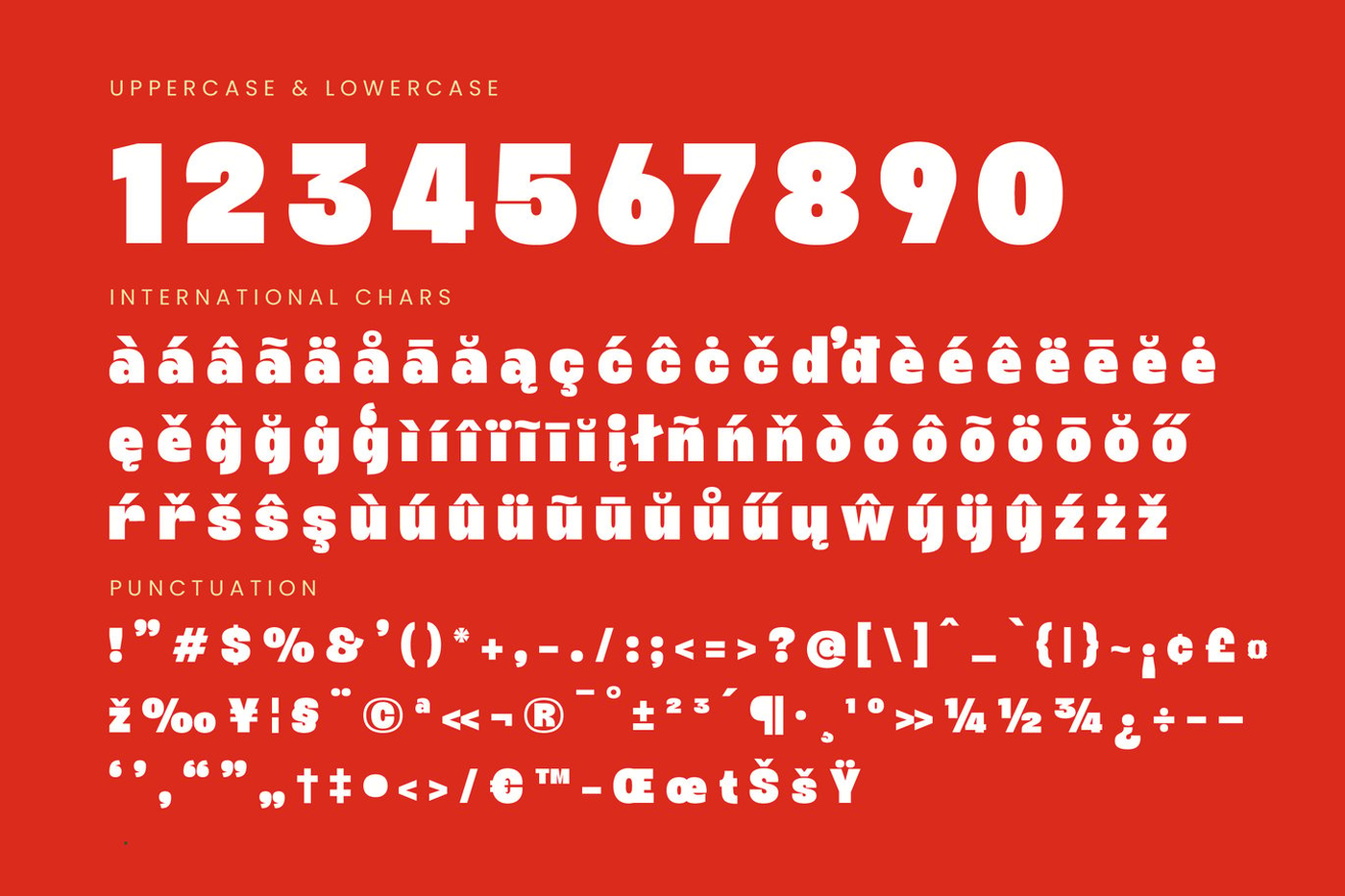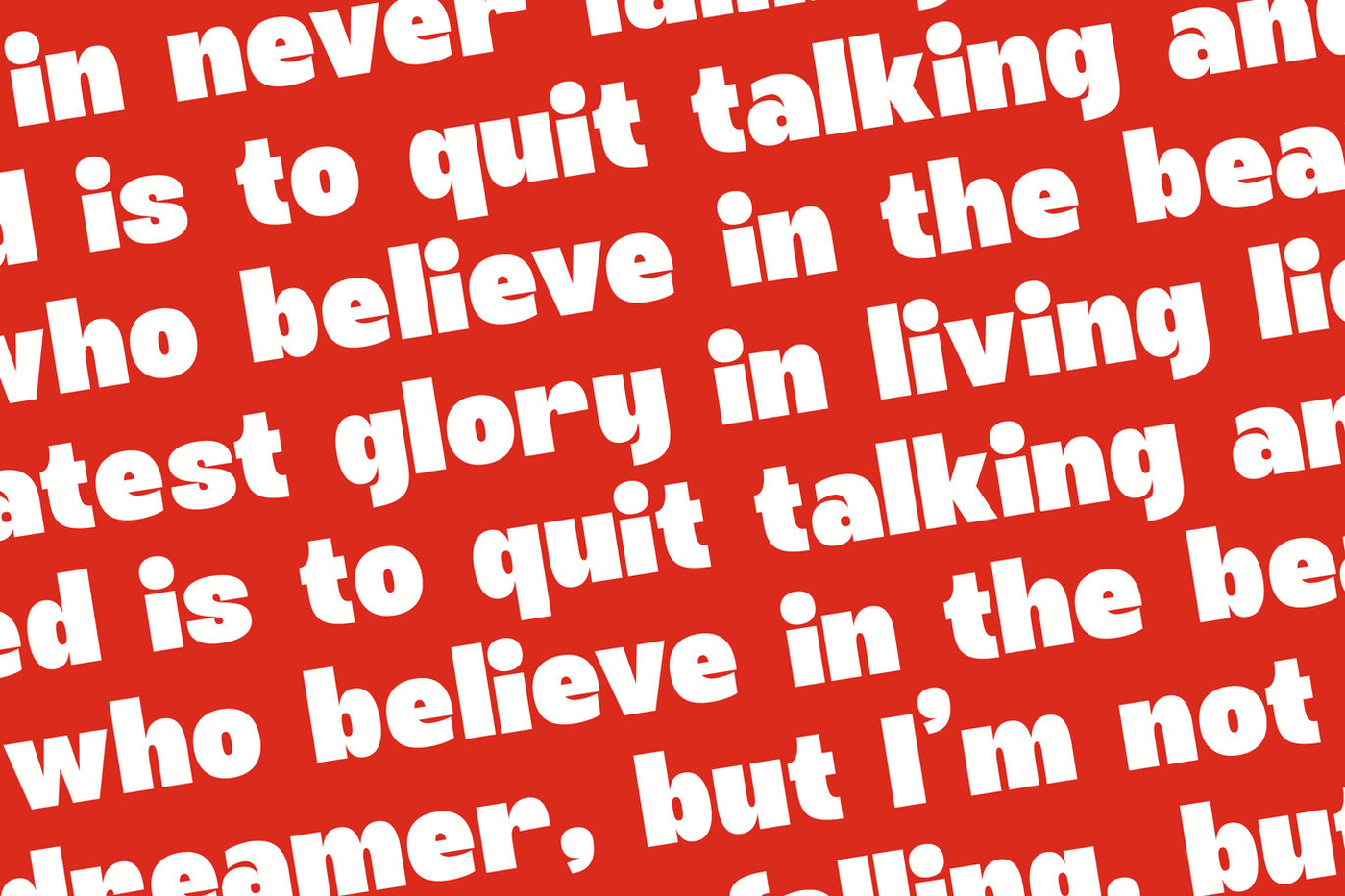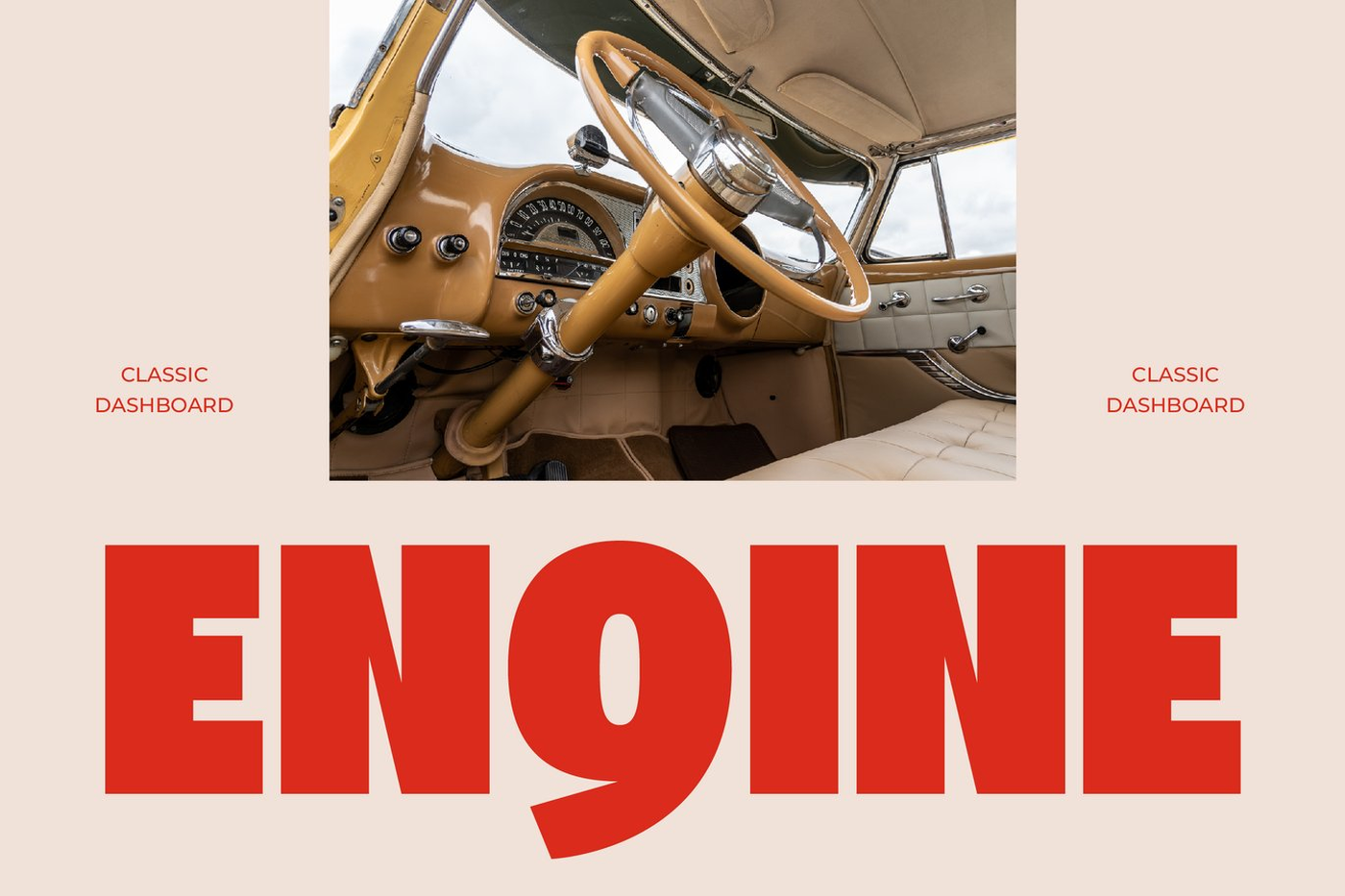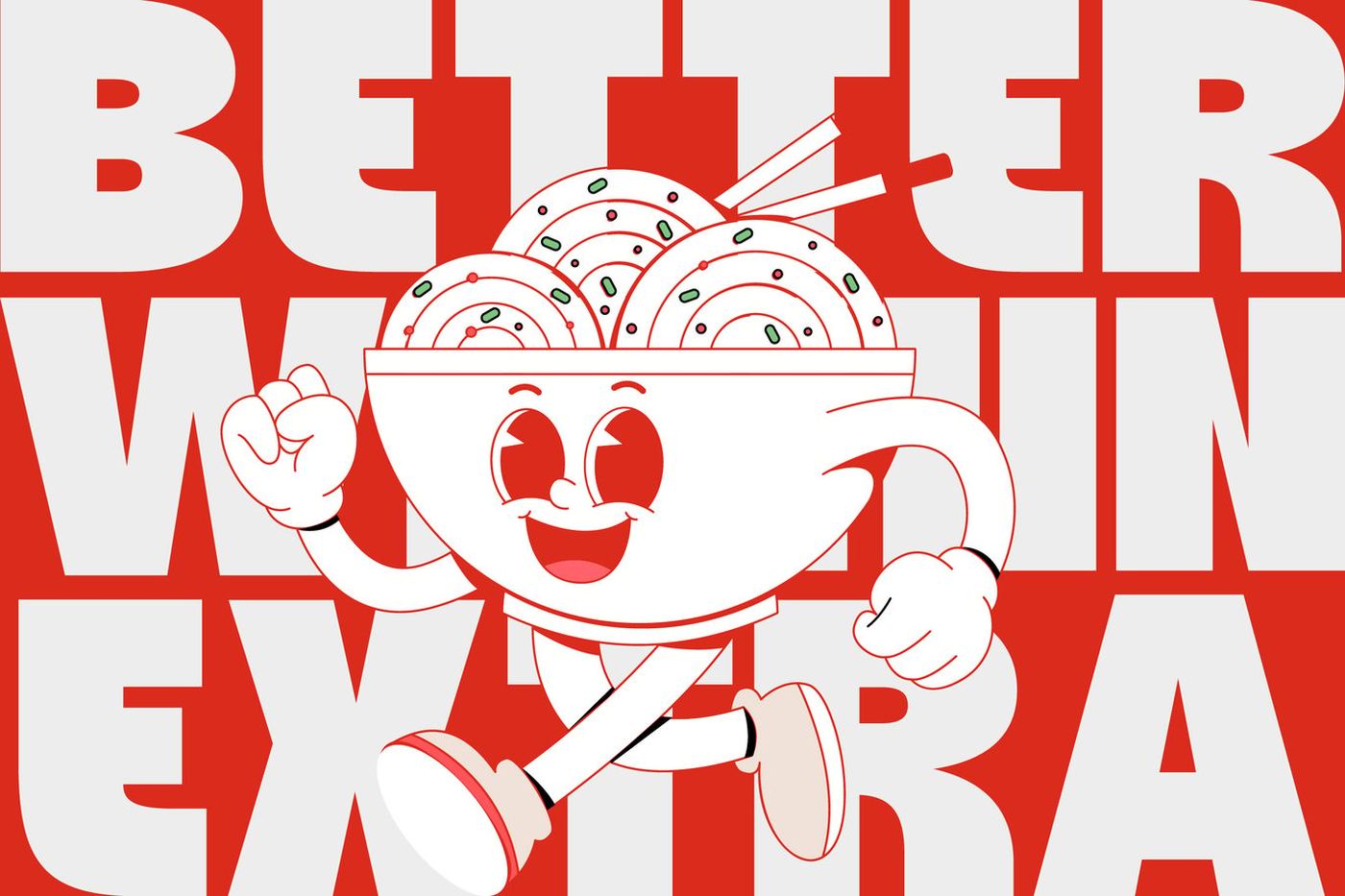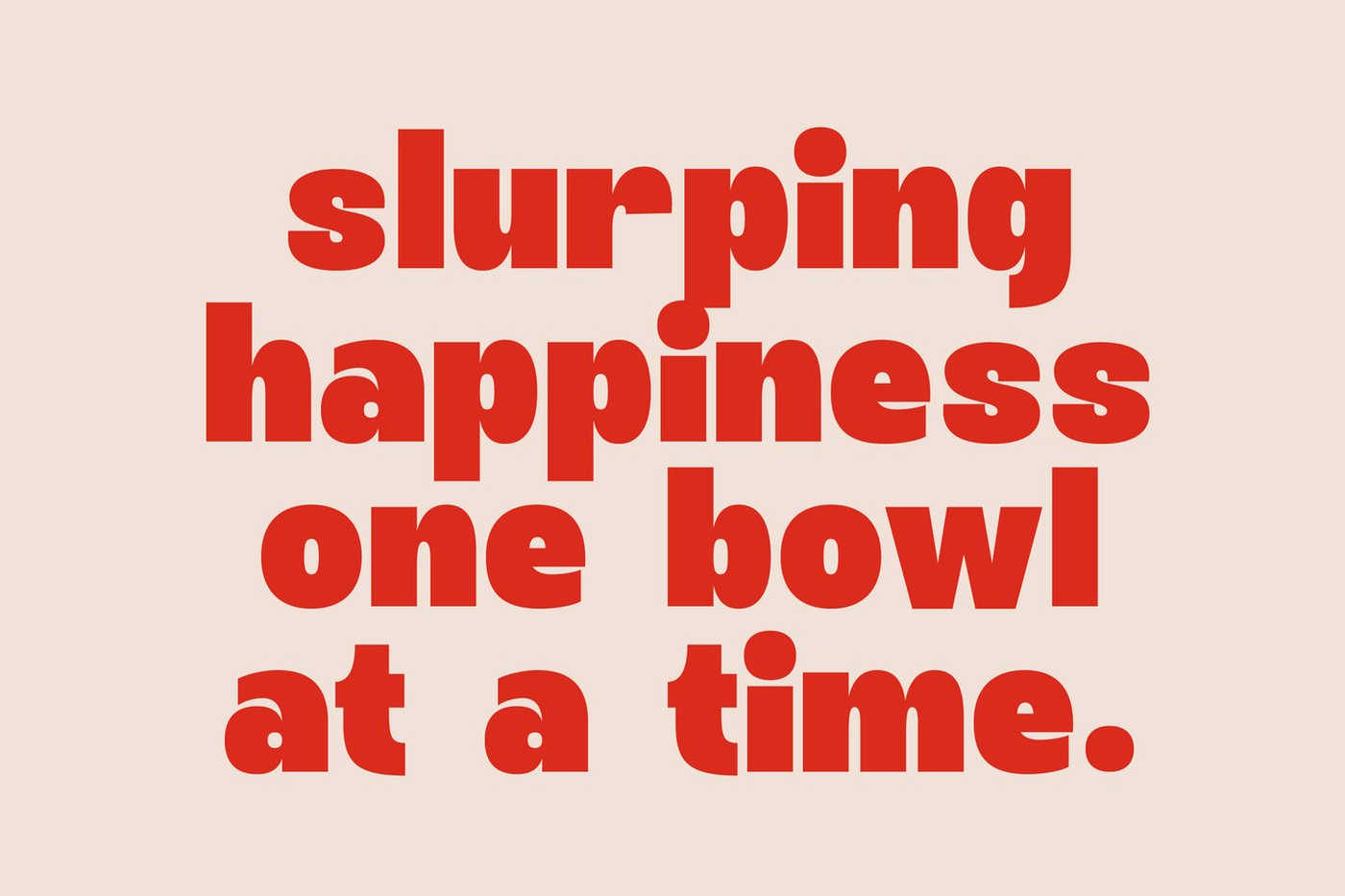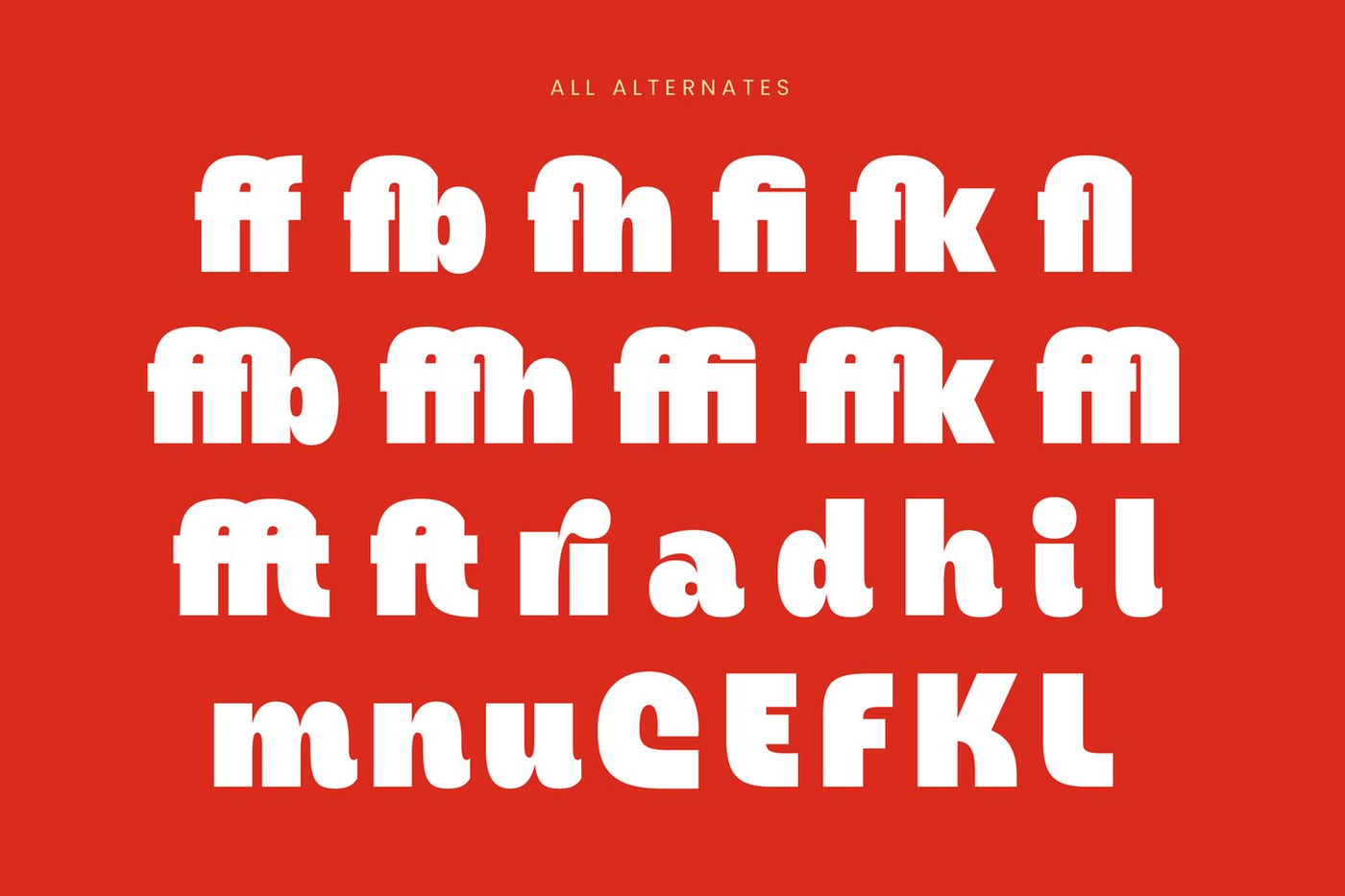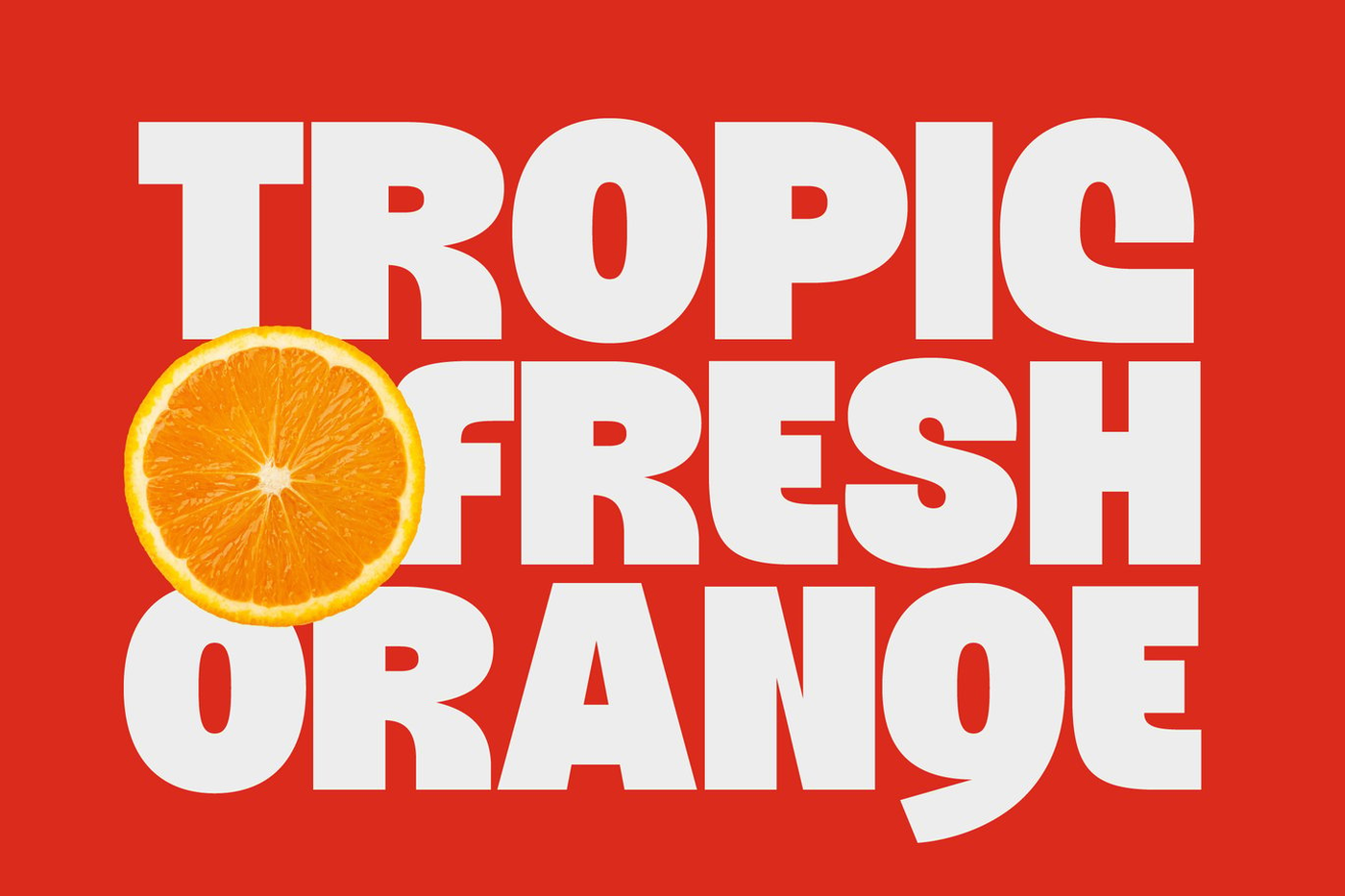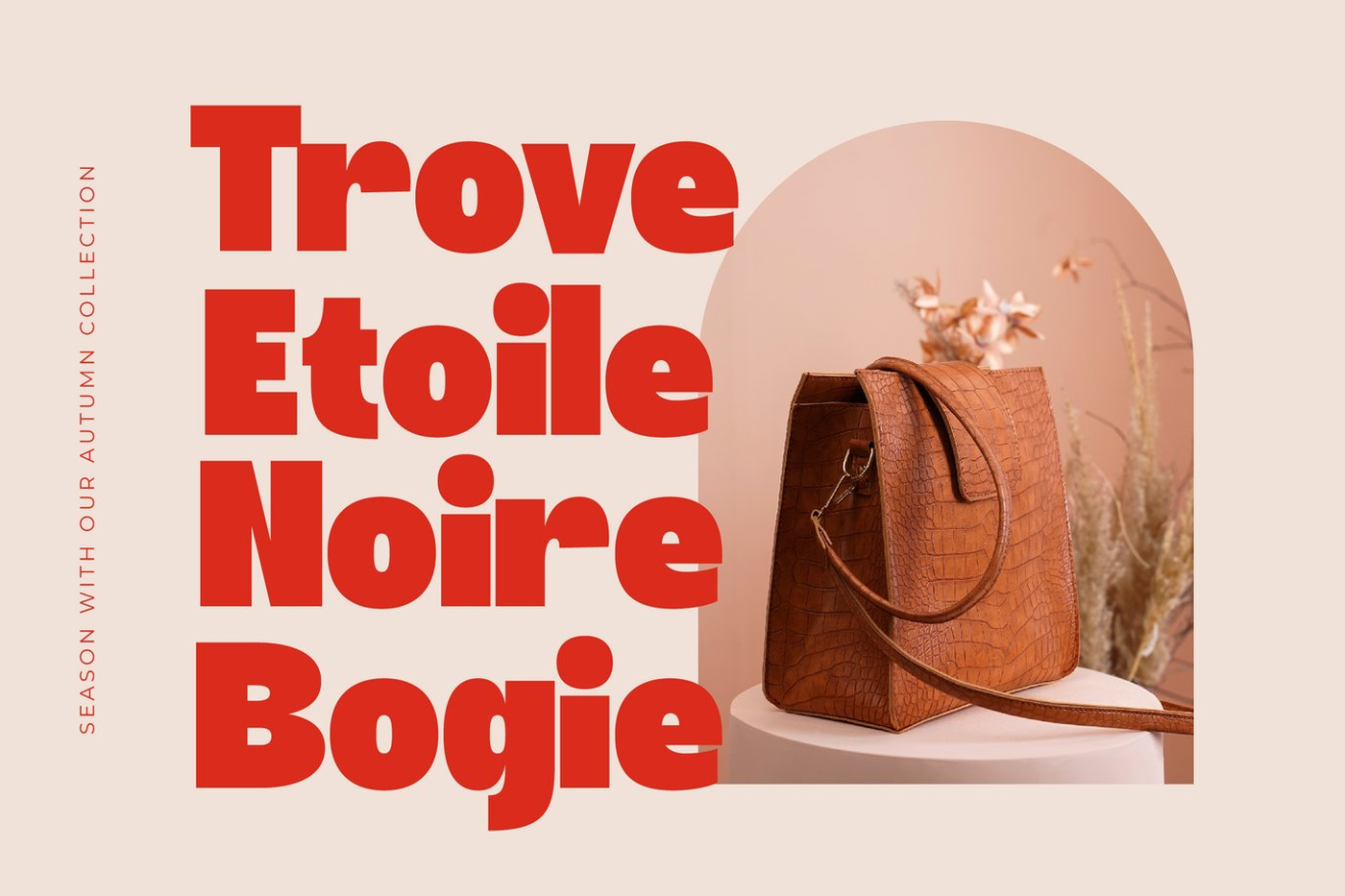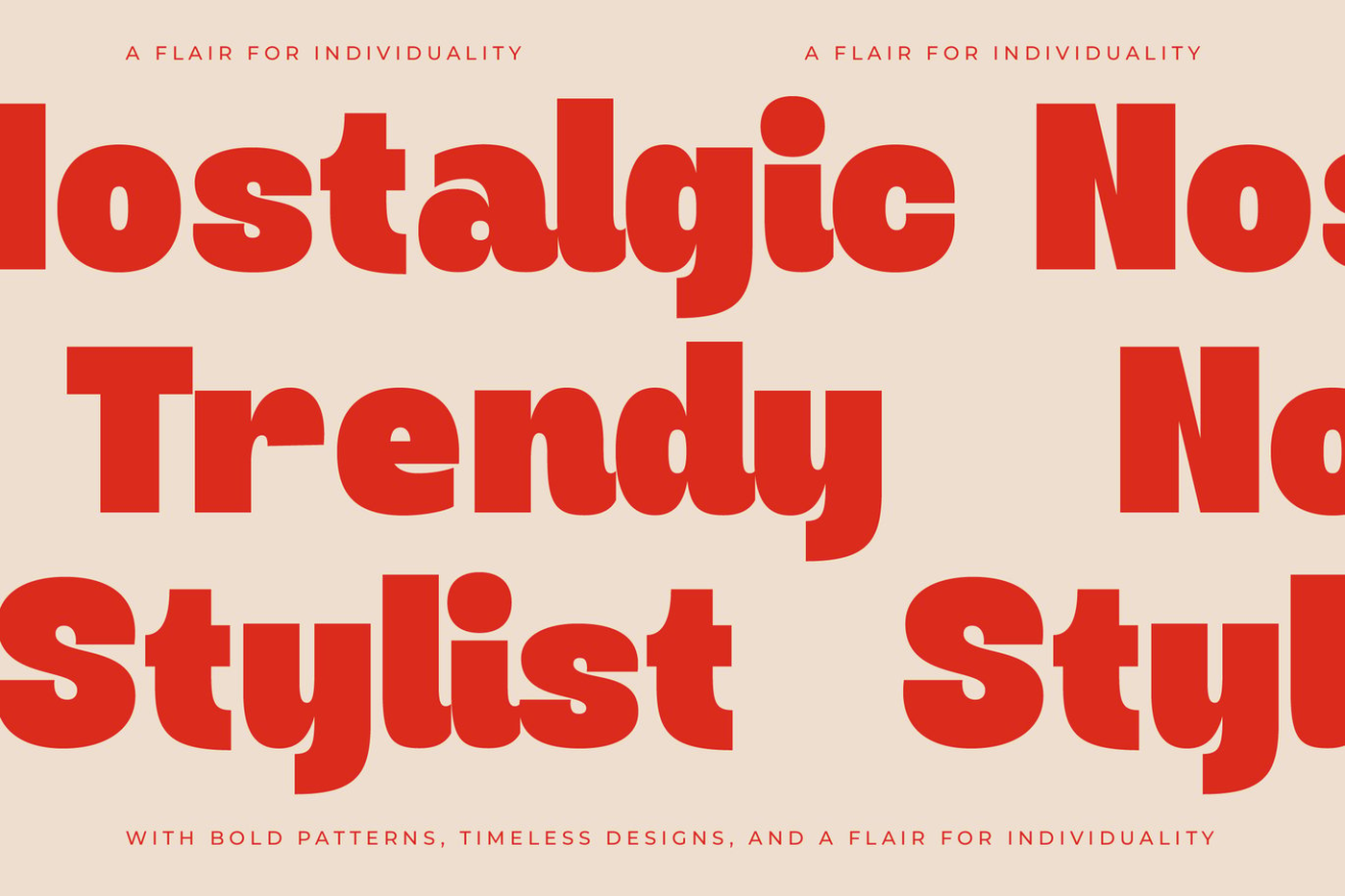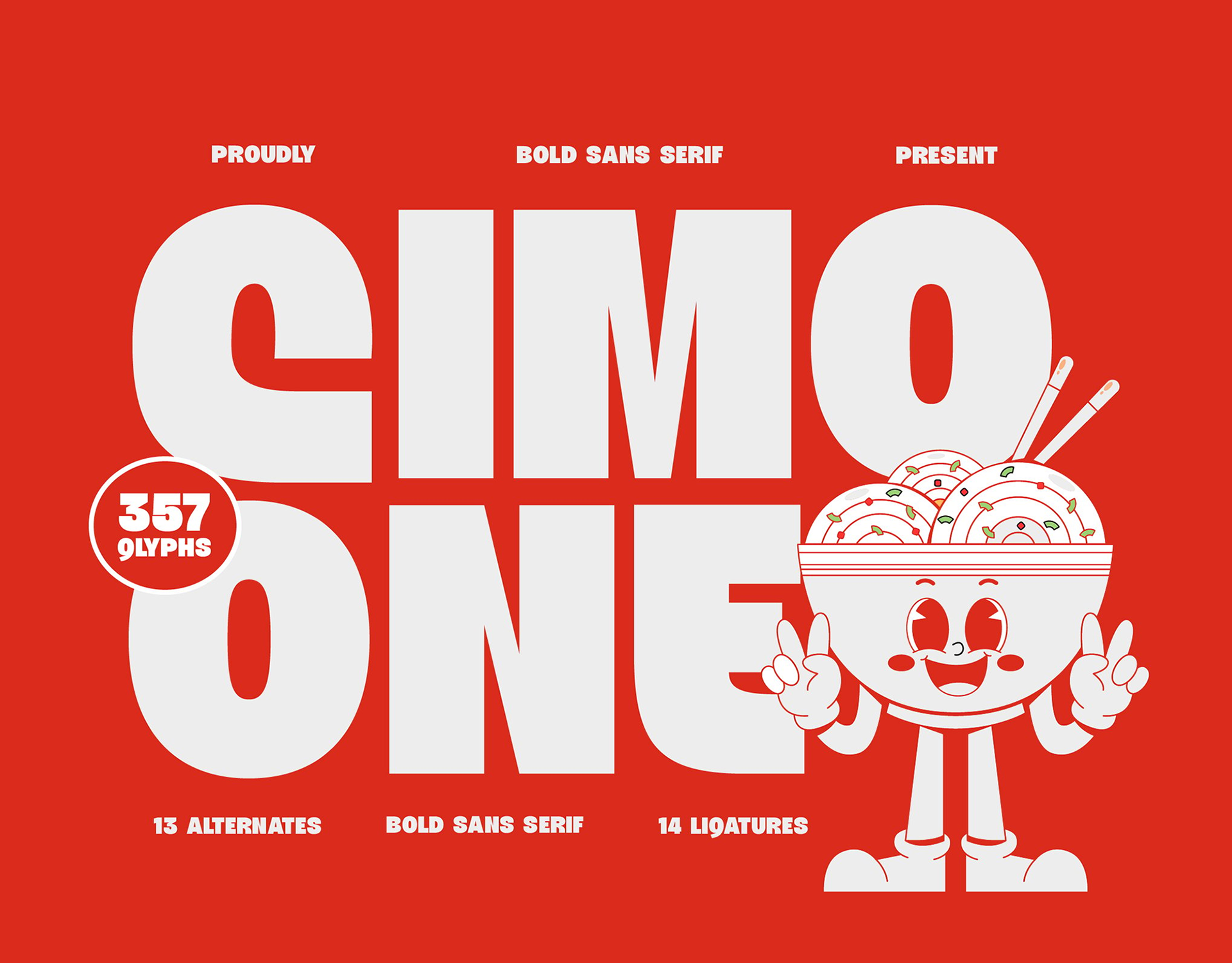
Cimo One - Bold Sans Serif Font
Cimone One is a bold sans serif display font with heavy, compact letterforms and a fun, energetic personality. Built for maximum impact, this chunky typeface is perfect for posters, food branding, children’s products, merchandise, social media graphics, packaging, and playful headline designs. Its rounded edges and friendly shapes give every layout a lively, approachable feel while still delivering strong visual presence. Featuring 14 ligatures, 13 alternates, and a total of 357 glyphs, Cimone One allows designers to explore a wide range of expressive compositions, stylized titles, and unique logo concepts. Its thick strokes, clean structure, and bold simplicity make it an excellent choice for creative projects that need punch, clarity, and cheerful character.
Font: Cimo One